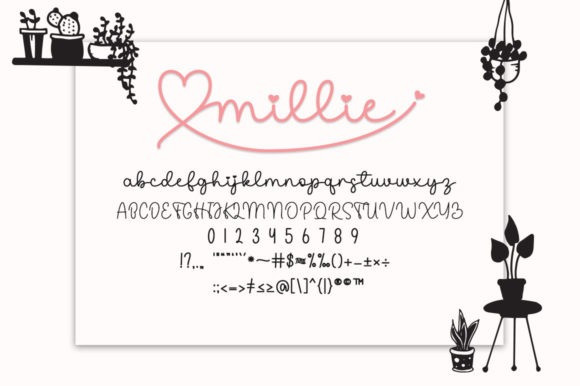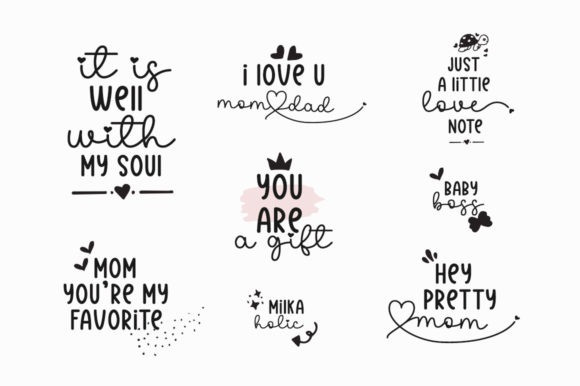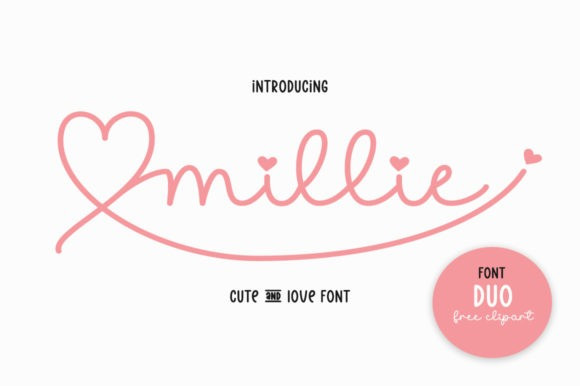
Millie Font
Millie consists of two fonts designed to complement each other perfectly. Together or apart, these fonts are ideal for adding a chic and cheery touch to your crafts. This font is PUA encoded which means you can access all glyphs and swashes with ease!